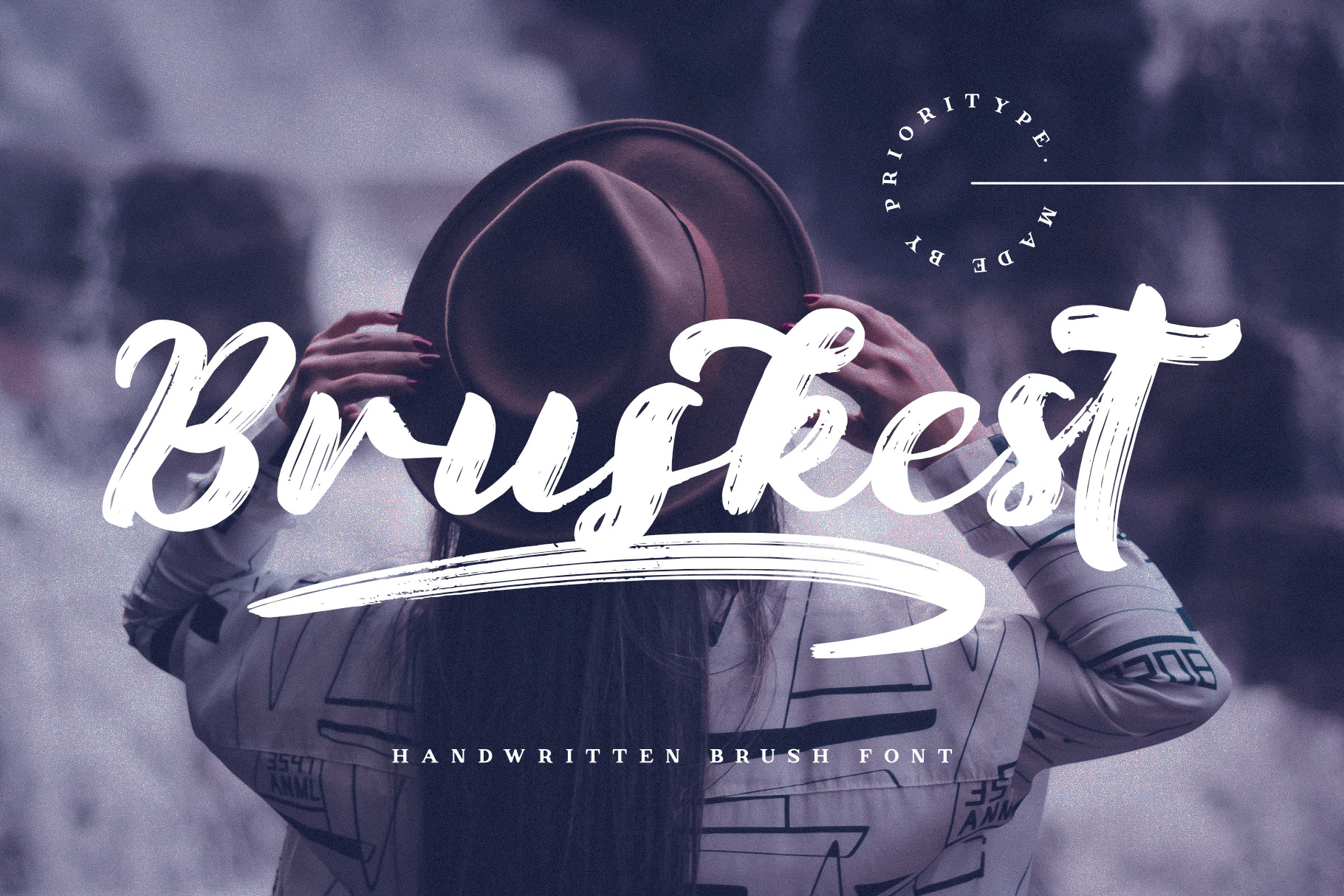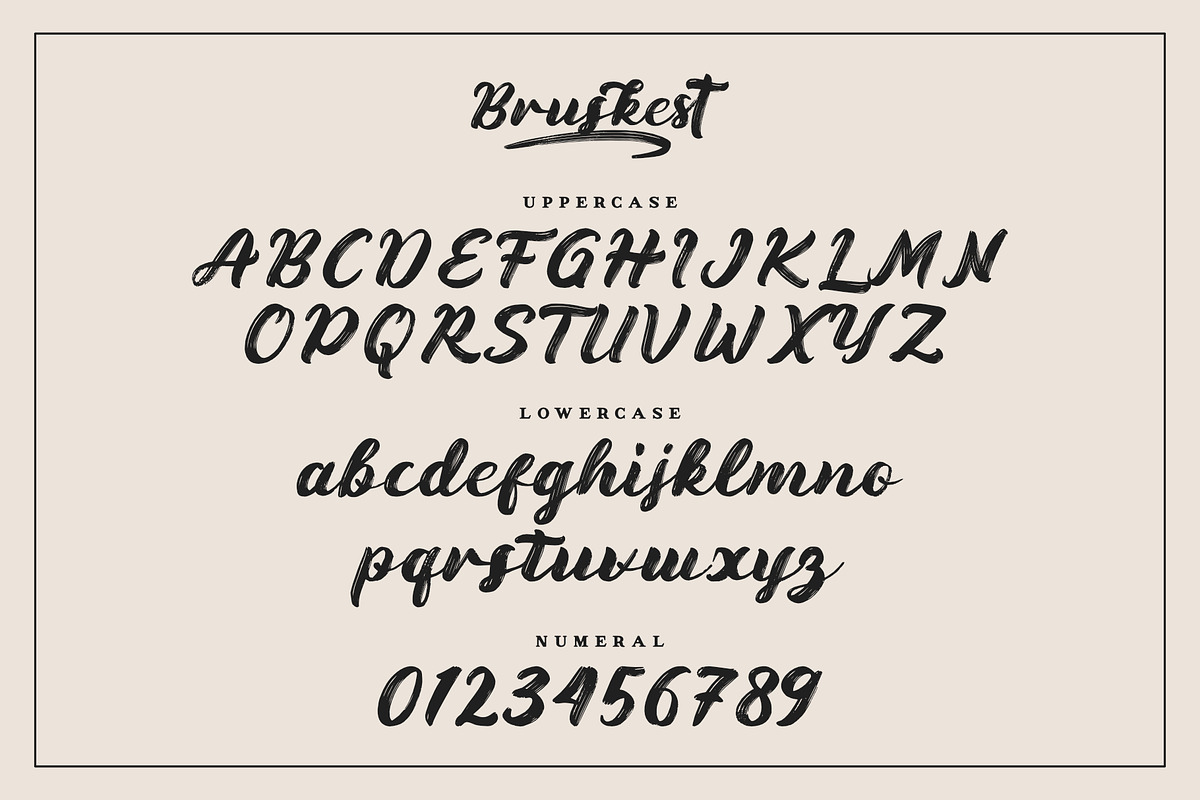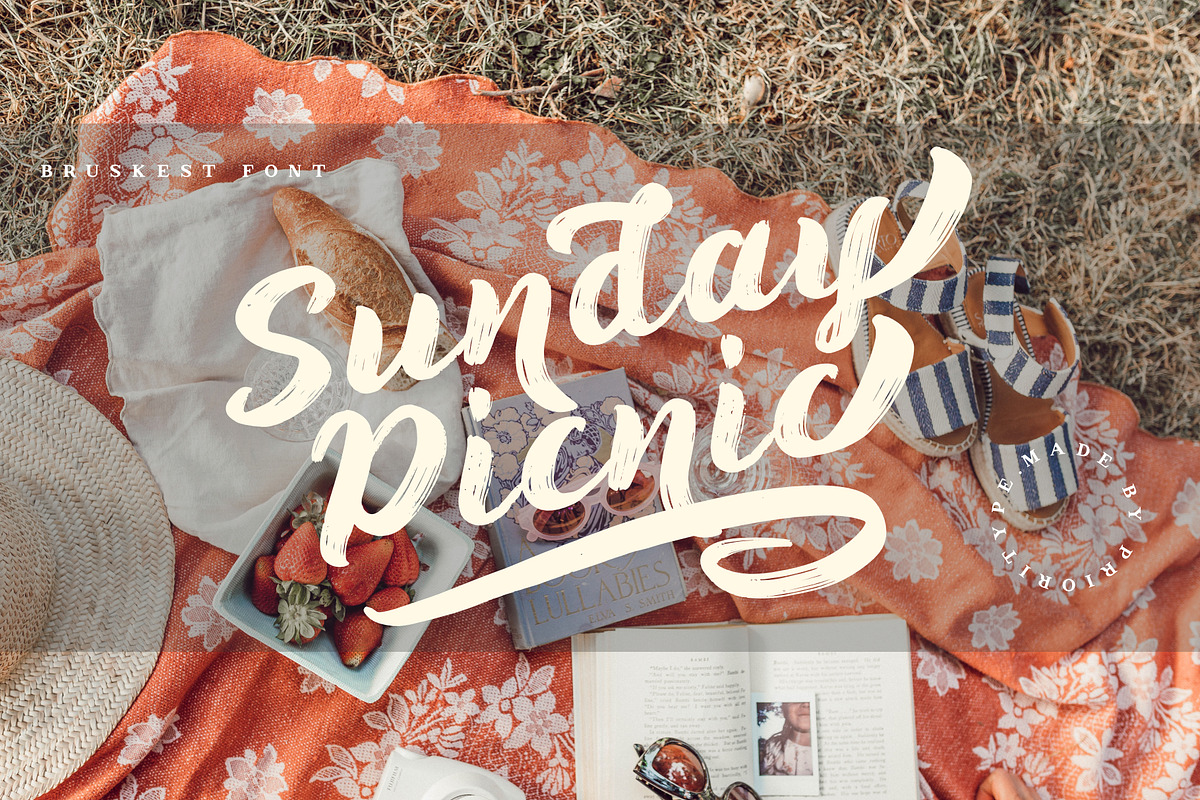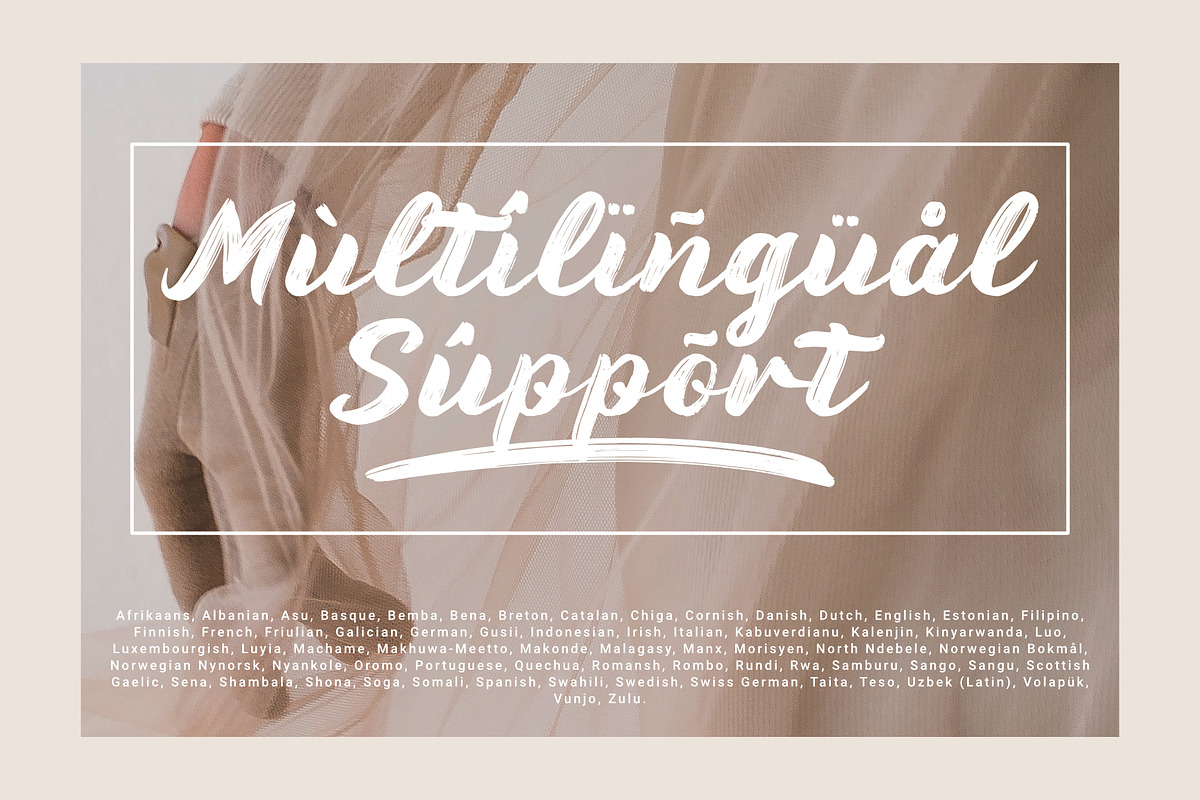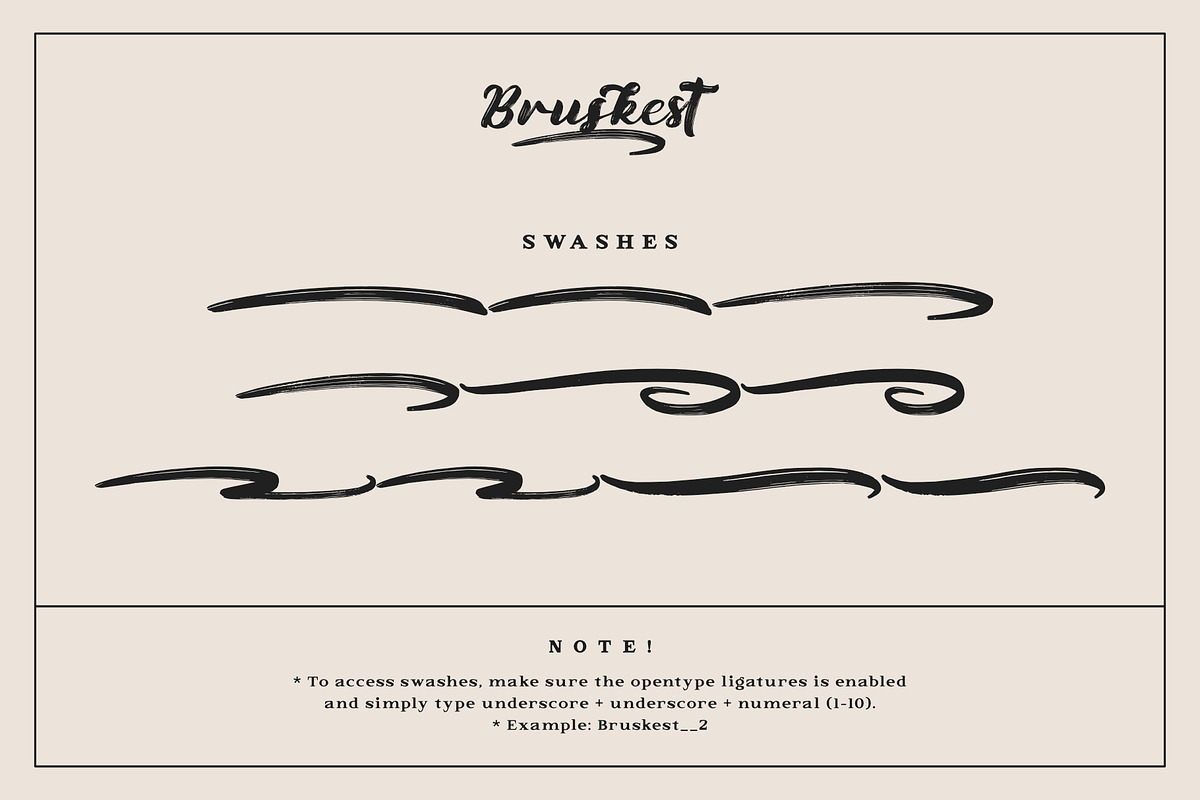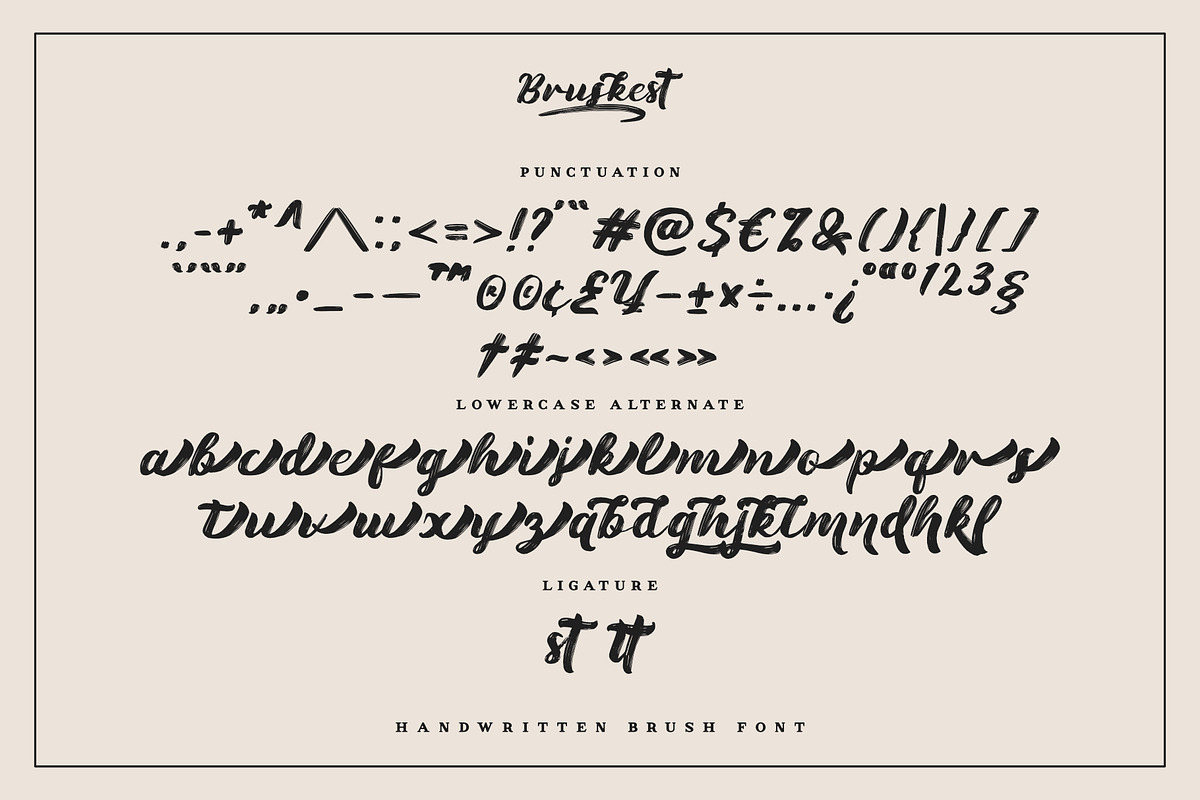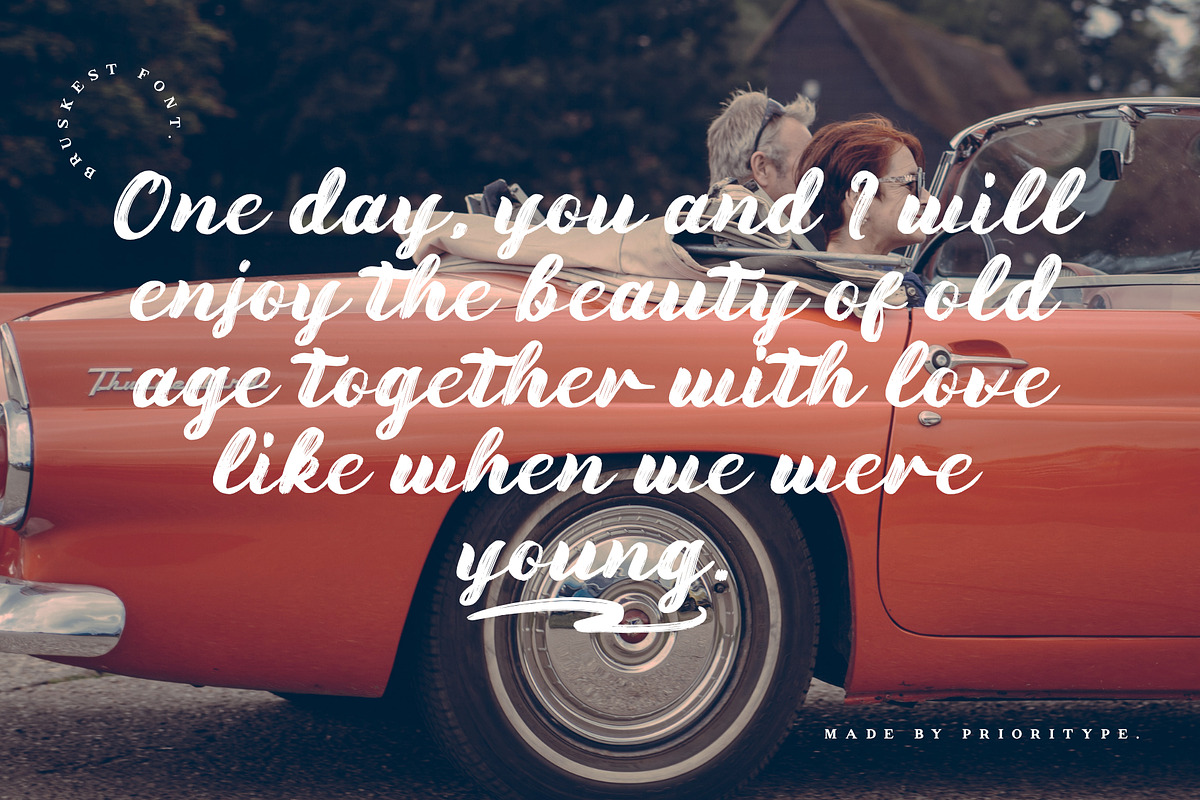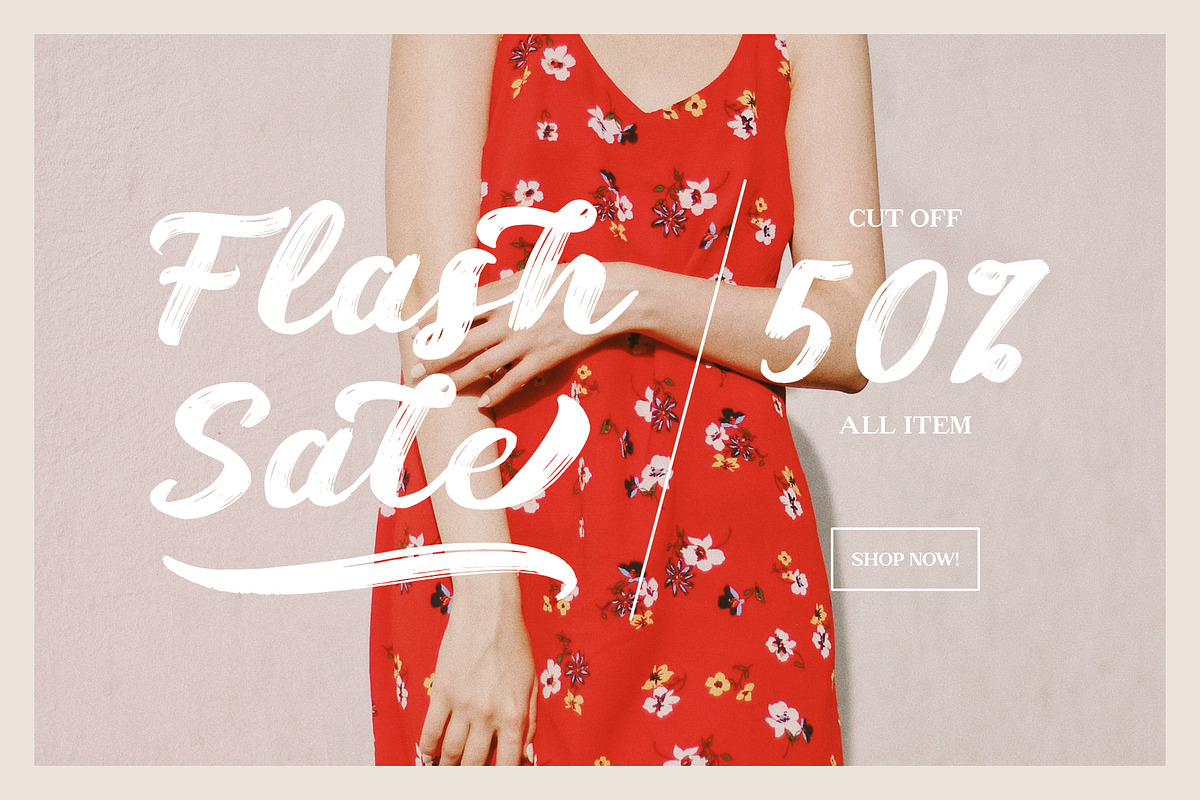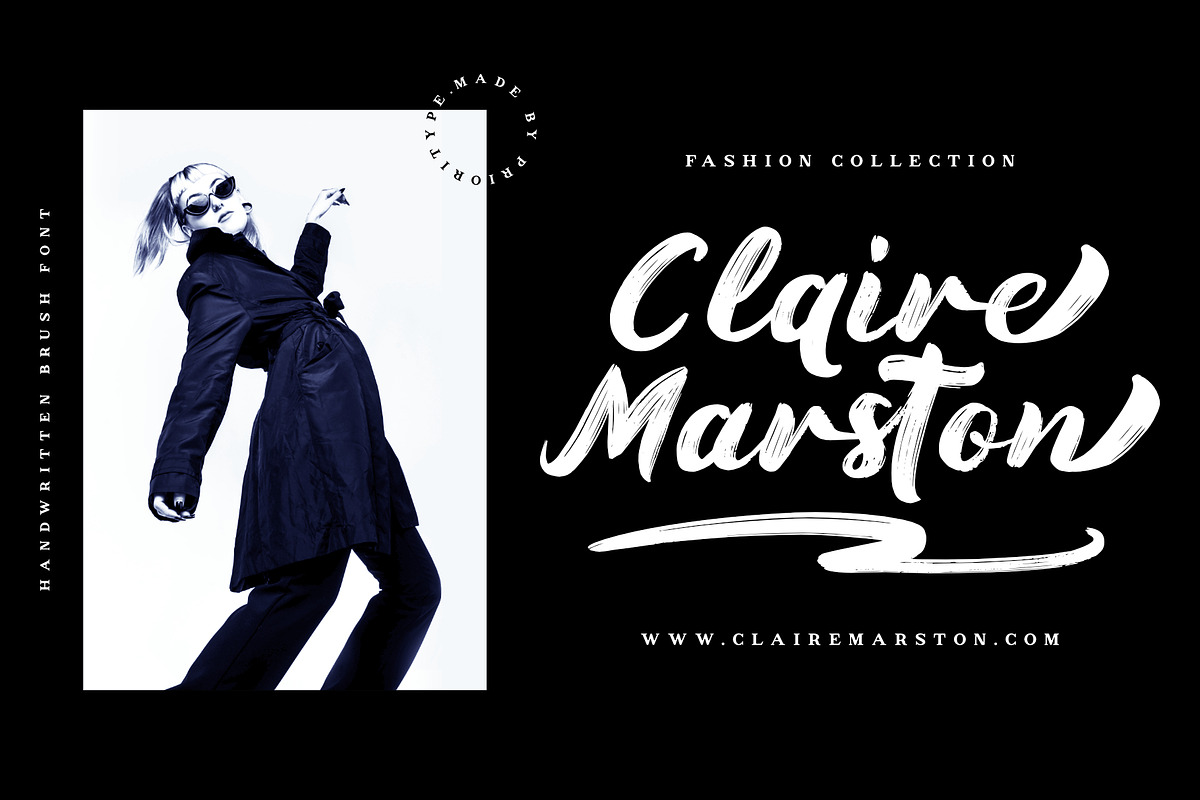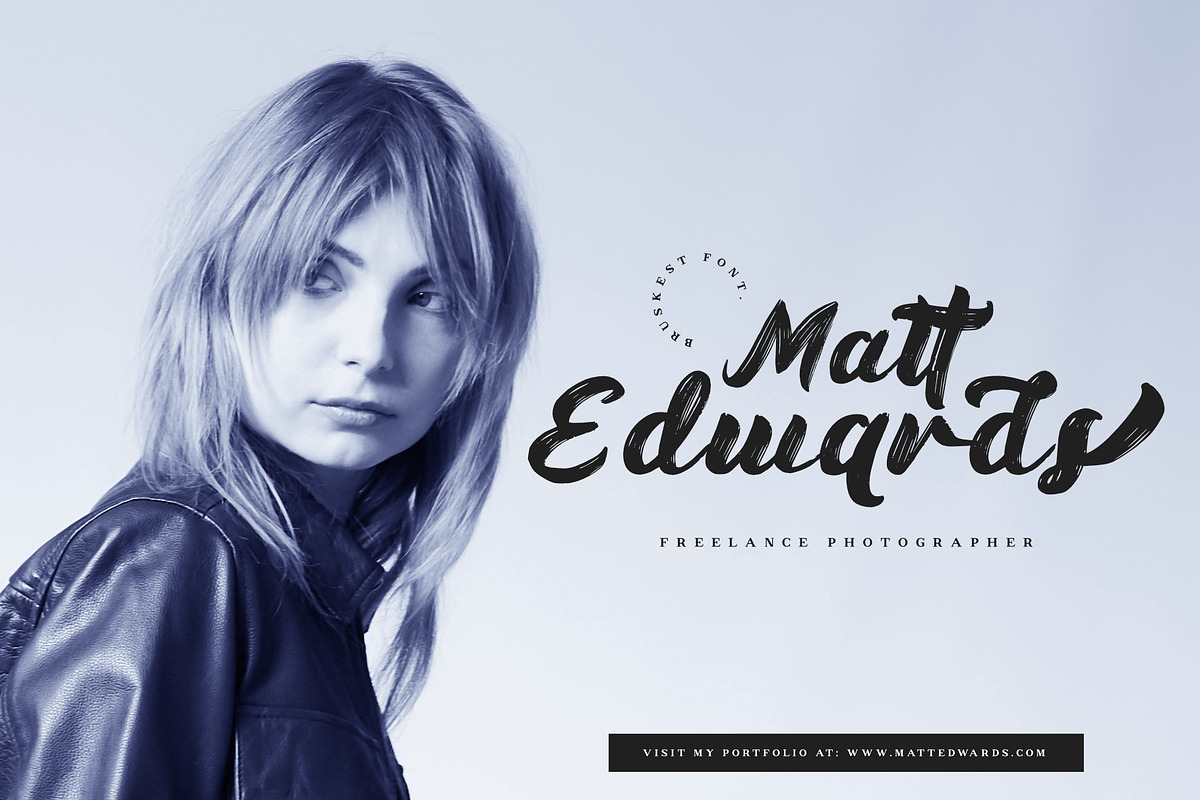
Bruskest - Handwritten Brush Font
Handwritten and textured natural fonts are ready to accompany your projects. Very impressive for the design of social media posts, branding, covers, quotes and more.
- Features: Uppercase, Lowercase, Numeral, Punctuation, Multilingual, Alternates, Ligatures, Swashes & PUA Encoded.
- Multilingual contained: Afrikaans, Albanian, Asu, Basque, Bemba, Bena, Breton, Catalan, Chiga, Cornish, Danish, Dutch, English, Estonian, Filipino, Finnish, French, Friulian, Galician, German, Gusii, Indonesian, Irish, Italian, Kabuverdianu, Kalenjin, Kinyarwanda, Luo, Luxembourgish, Luyia, Machame, Makhuwa-Meetto, Makonde, Malagasy, Manx, Morisyen, North Ndebele, Norwegian Bokmål, Norwegian Nynorsk, Nyankole, Oromo, Portuguese, Quechua, Romansh, Rombo, Rundi, Rwa, Samburu, Sango, Sangu, Scottish Gaelic, Sena, Shambala, Shona, Soga, Somali, Spanish, Swahili, Swedish, Swiss German, Taita, Teso, Uzbek (Latin), Volapük, Vunjo, Zulu.